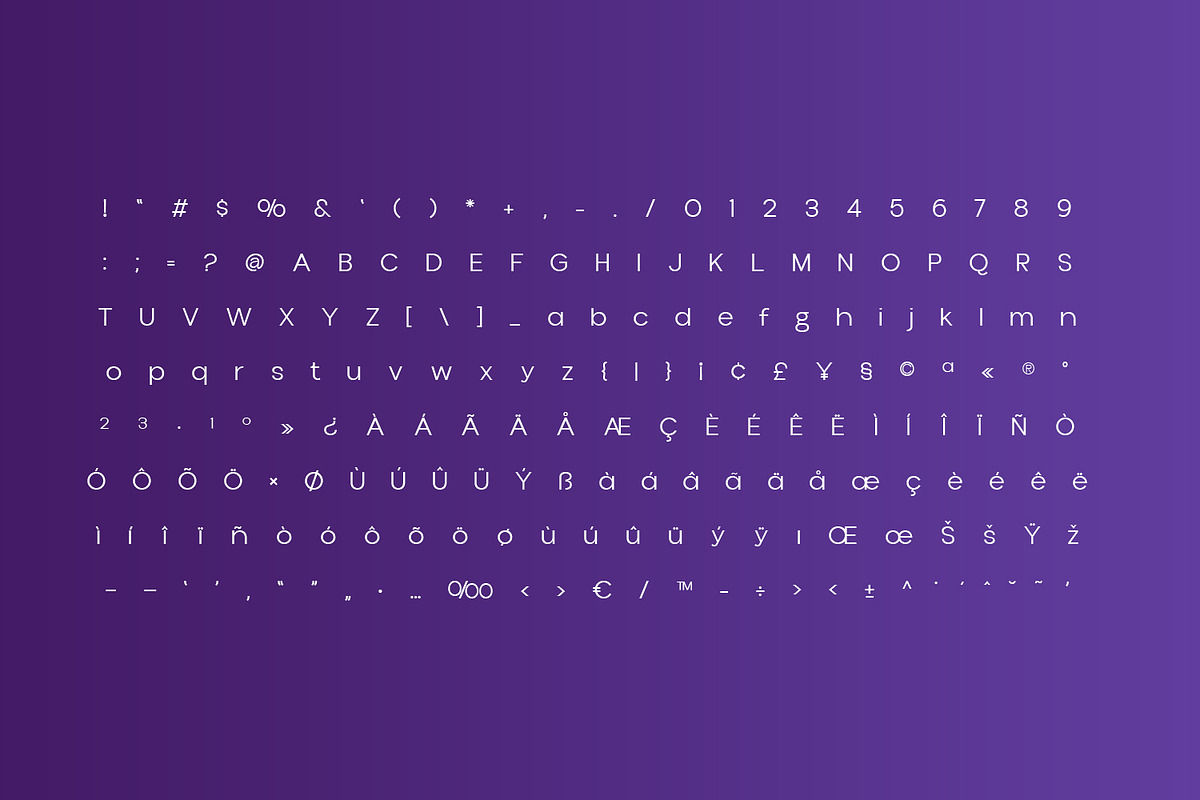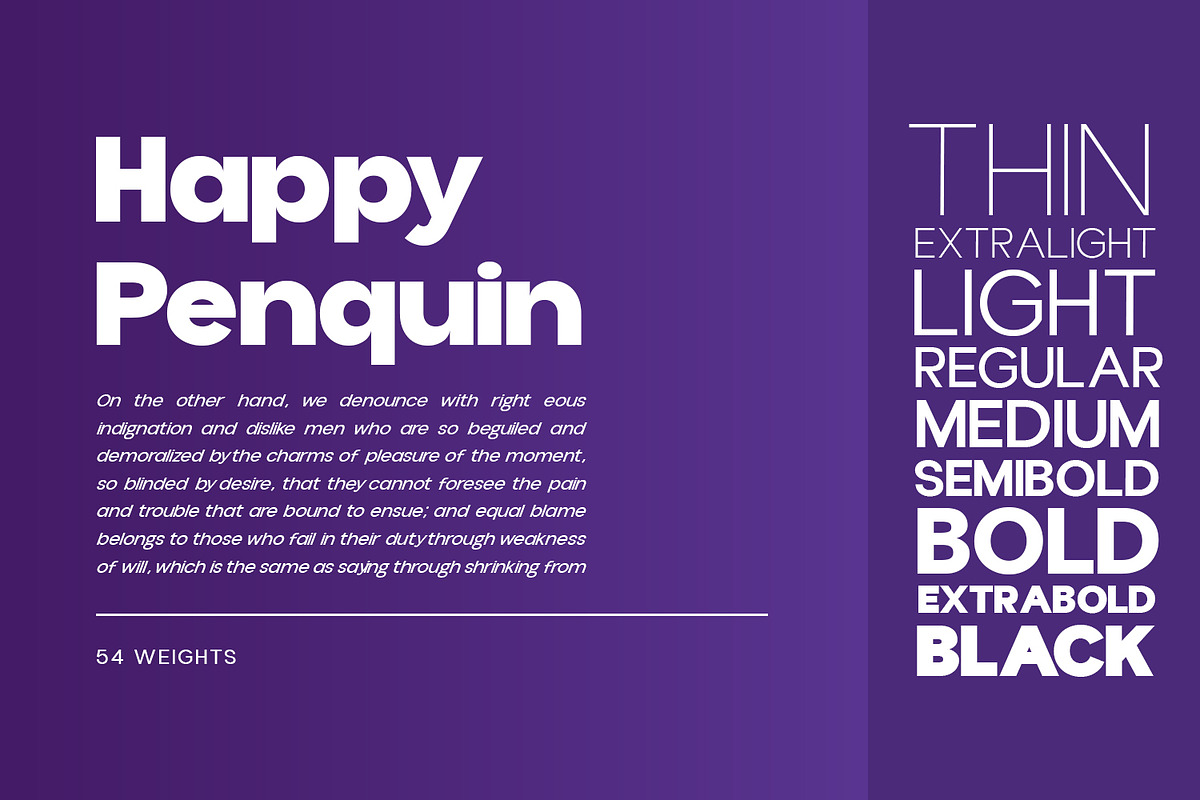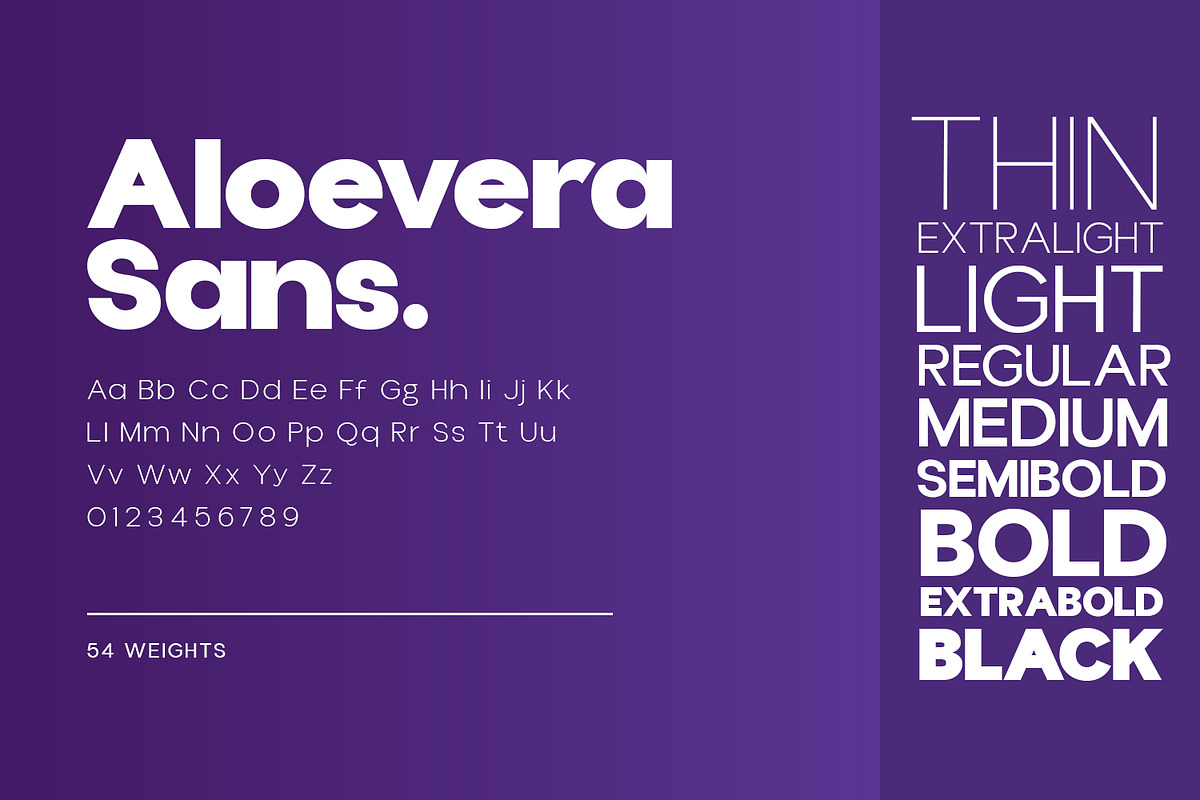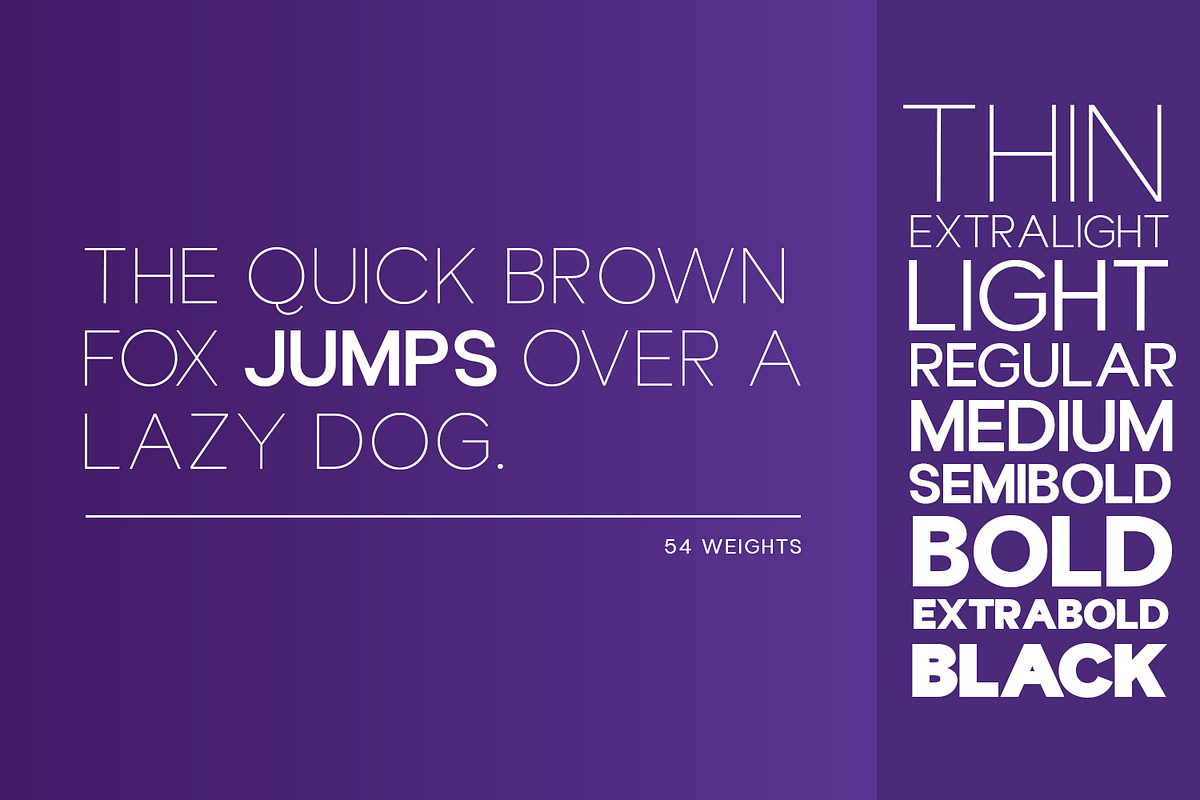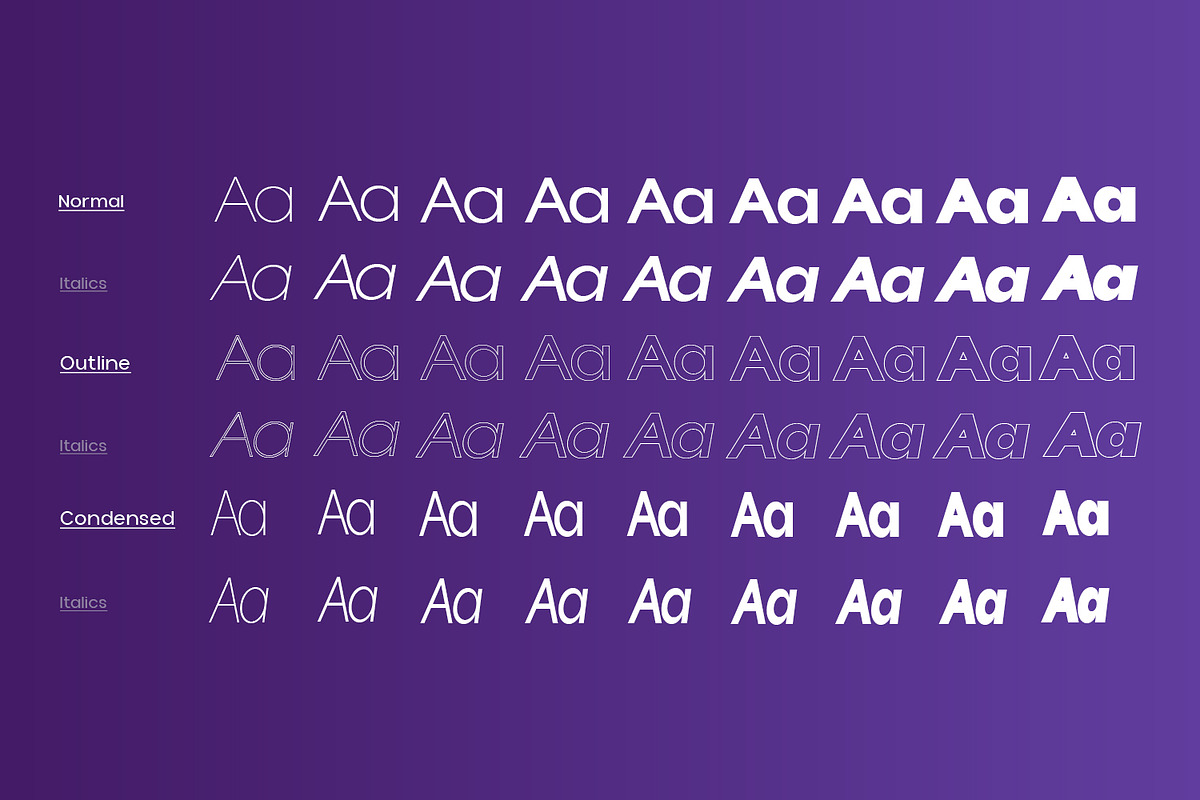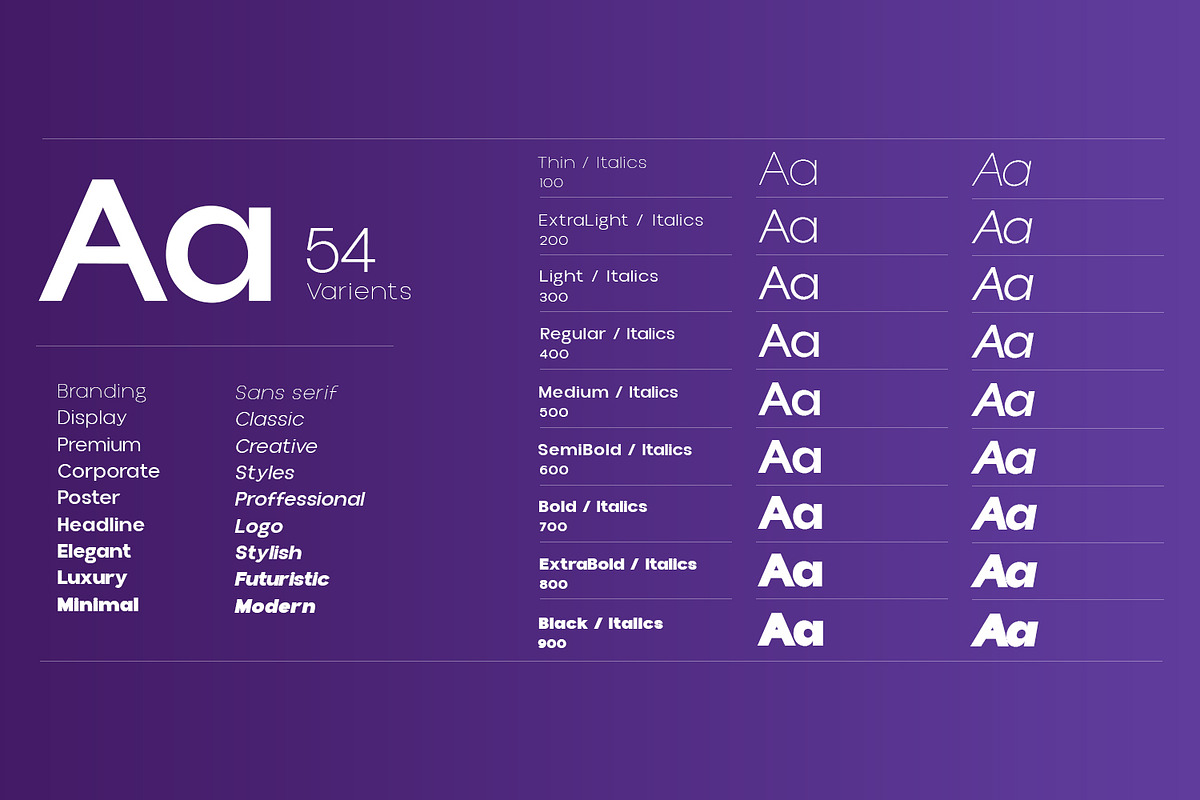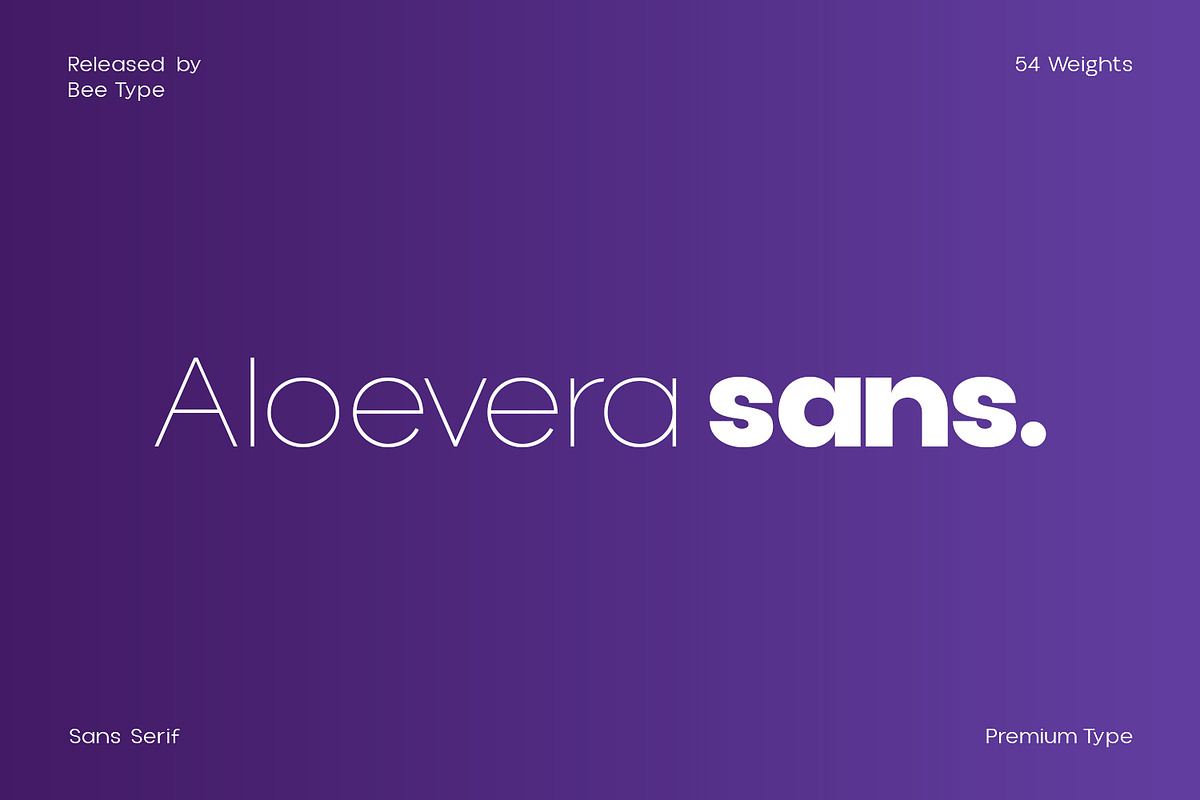
Aloevera sans
Aloevera sans typeface is a Brand New Elegant Typeface with 54 Variants. It has a dependable and uncompromising style, with controlled letterforms and modern touches. It looks amazing in logos, magazines, and movies. Aloevera sans Font would be perfect for branding, headlines, Captions, paragraphs, and posters. The various weights allow you to experiment with a wide range of applications. It's created to make an impression without sacrificing its beauty and readability. It's shown a clean, minimalist, warmth, quirky, yet still purposed to be versatile
The Typeface includes Nine Weights -Thin, ExtraLight, Light, Regular, Medium, SemiBold, Bold, ExtraBold and Black.
Numerals and extended punctuation (200+ Glyphs). Expert kerning and quality crafting. Normal, Italic, Condensed and Outline Variants are Included. Thank you for taking the time to look into the font.